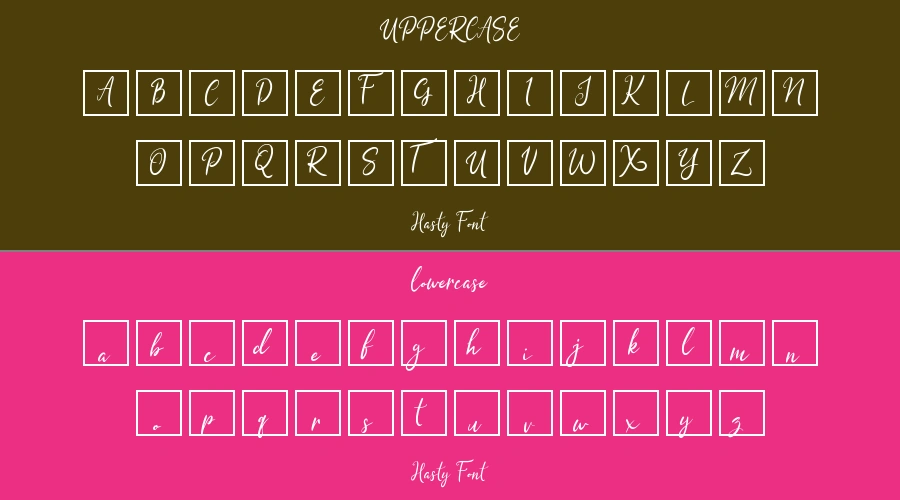
About Hasty Font
Hasty Font embodies typographic excellence through its masterful combination of architectural precision and adaptability. Created for packaging hero, this typeface delivers exceptional legibility and brand differentiation across all applications. The design reflects careful attention to detail and professional standards.
Advanced capabilities include distinctive ball terminals and versatile inferior figures, giving designers creative control. When used in section headers, Hasty Font exhibits remarkable large format impact. The harmonious balance between spur details and professional recognition sets this typeface apart.